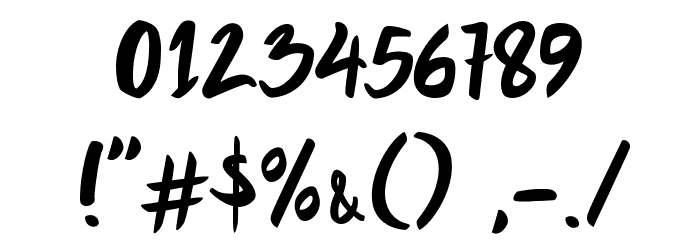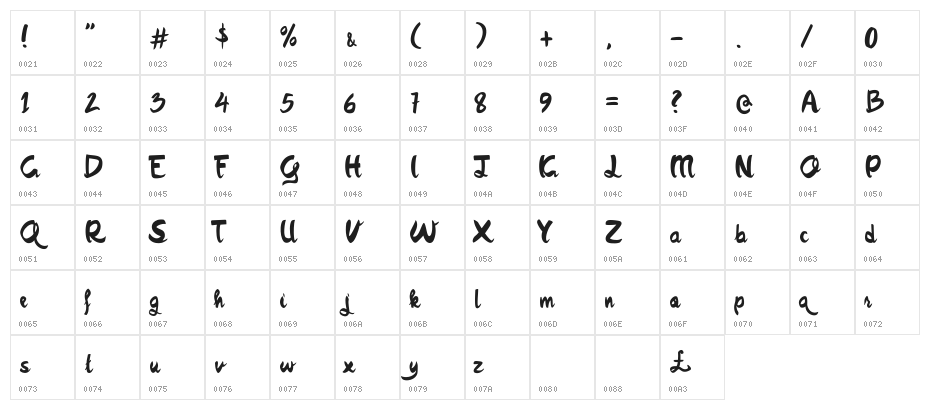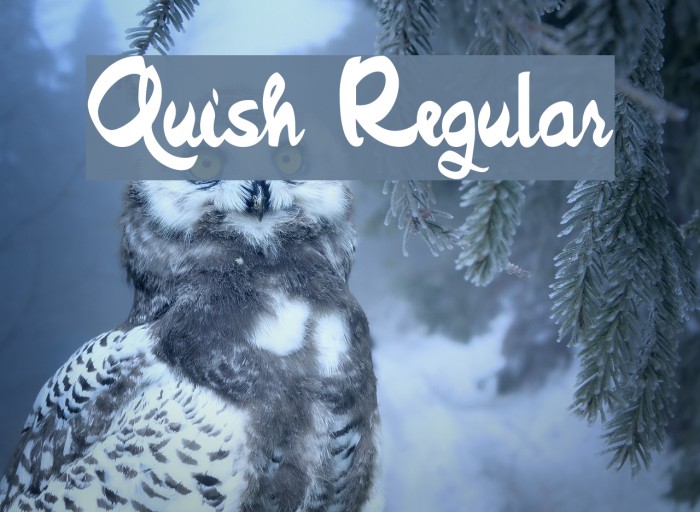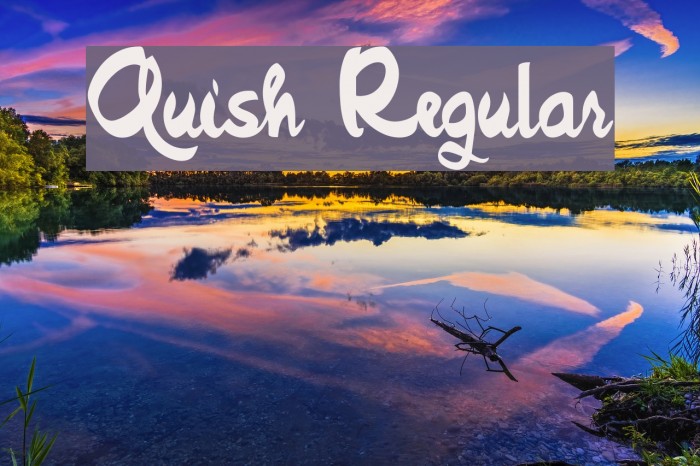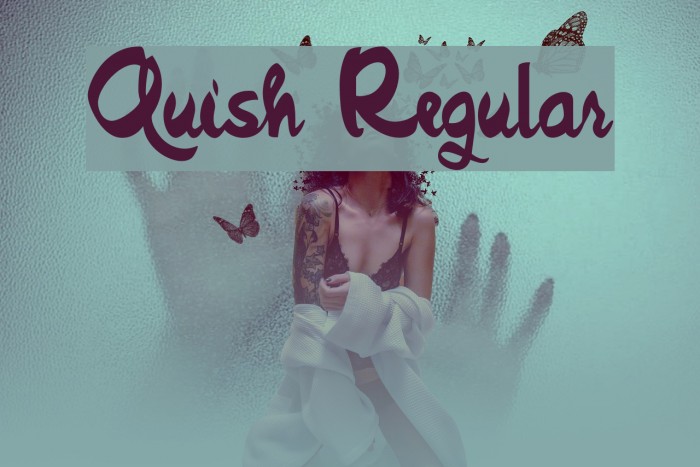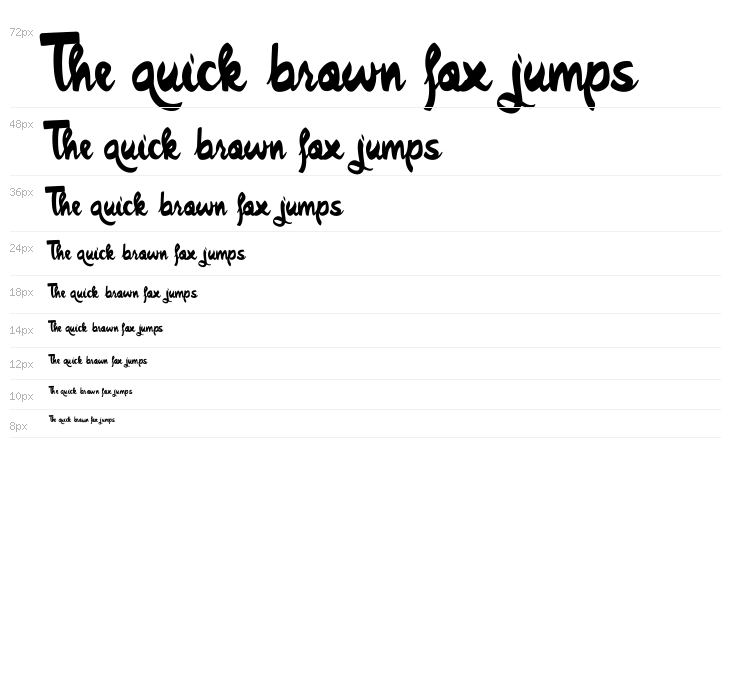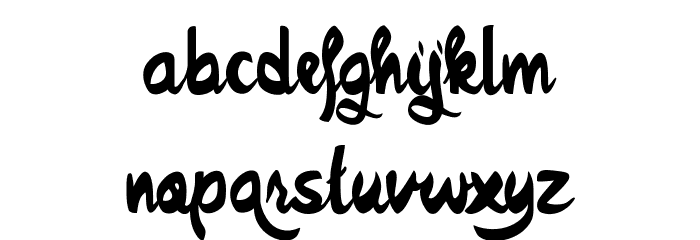
Quish Regular Font
Quish Regular Description
This font features a bold and expressive style with a handwritten, cursive appearance. The uppercase letters are large and flowing, with a playful yet elegant touch. The lowercase letters maintain a consistent style, with some characters having unique flourishes that add to the font's charm. The numbers are bold and clear, matching the overall aesthetic. Special characters are included, maintaining the same expressive style. This font is ideal for projects that require a personal and artistic touch, such as invitations, greeting cards, or branding materials.
| Proposed Projects | Ideal for invitations, greeting cards, branding, and artistic projects. |